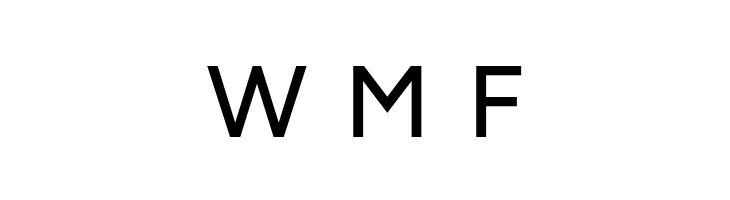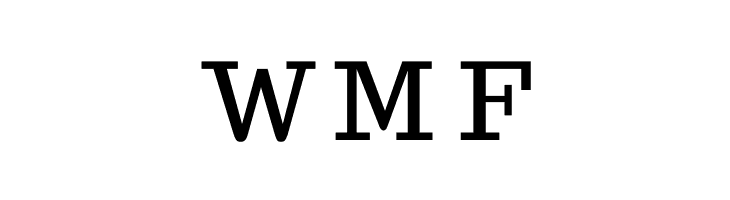
A modern serif font with a balanced and versatile design.
A modern serif font with elegant, readable letterforms and versatile design.
A modern, medium-weight sans-serif font with an italic style for versatile design use.
A classic serif font with elegant curves and modern versatility.
A modern, geometric sans-serif font with a clean and versatile design.
A clean, modern sans-serif font with excellent legibility and versatility.
A modern, clean sans-serif font with excellent readability and versatility.
A modern serif font with elegant lines and versatile applications.
A modern serif font with clean lines and versatile applications.
A classic serif font with elegant strokes and moderate contrast, ideal for versatile use.
A bold, modern serif font with a classic touch, perfect for versatile design applications.
A modern serif font with clean lines and balanced proportions, ideal for versatile use.
A classic serif typeface with elegant curves and modern versatility.
A bold serif font with strong, classic features and modern versatility.
A modern, geometric sans-serif font with a clean and versatile design.
A versatile collection of directional arrows with various styles and orientations.
A bold, modern sans-serif font with excellent legibility and versatility.
A modern, versatile sans-serif font with clean, rounded letterforms and balanced proportions.
A modern, condensed sans-serif font with excellent readability and versatility.
A versatile set of arrow designs with varied styles and directions.
A versatile collection of monochrome social media logos, designed for easy recognition and integration.
Bold, distressed style with both solid and outlined versions for versatile use.
A versatile collection of decorative frames and shapes with unique styles.
A modern, geometric sans-serif font with a clean and versatile design.
A modern, bold sans-serif font with excellent readability and versatility.
A playful, bubble-like font with bold, rounded characters and a three-dimensional outline.
A classic serif font with modern elegance and slight contrast, perfect for versatile use.